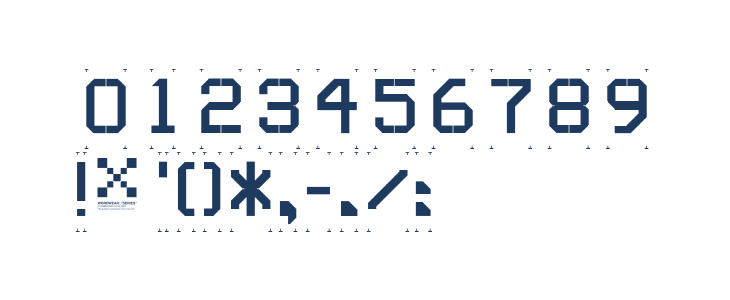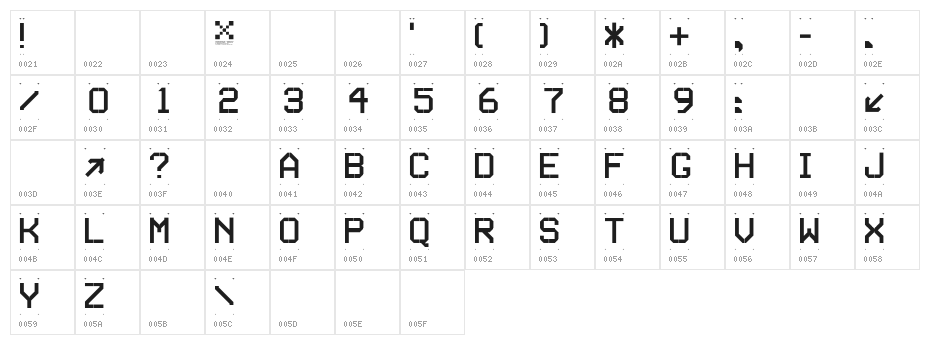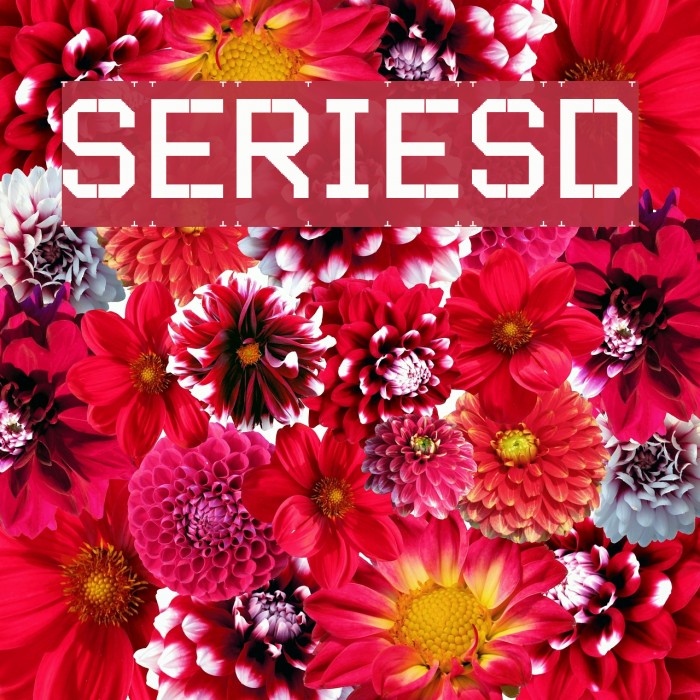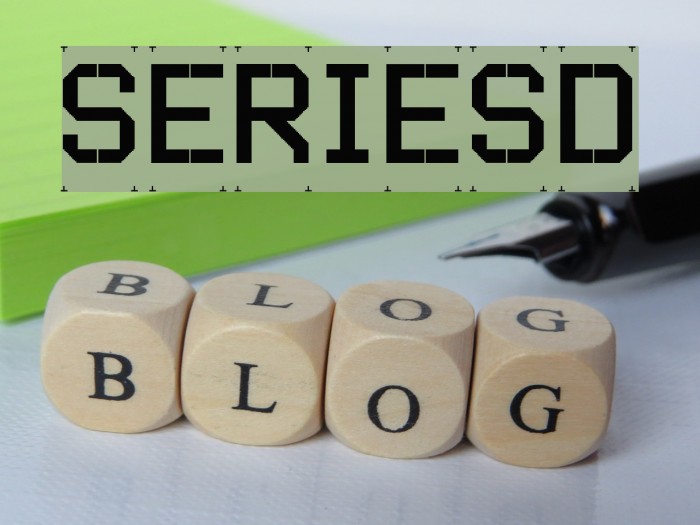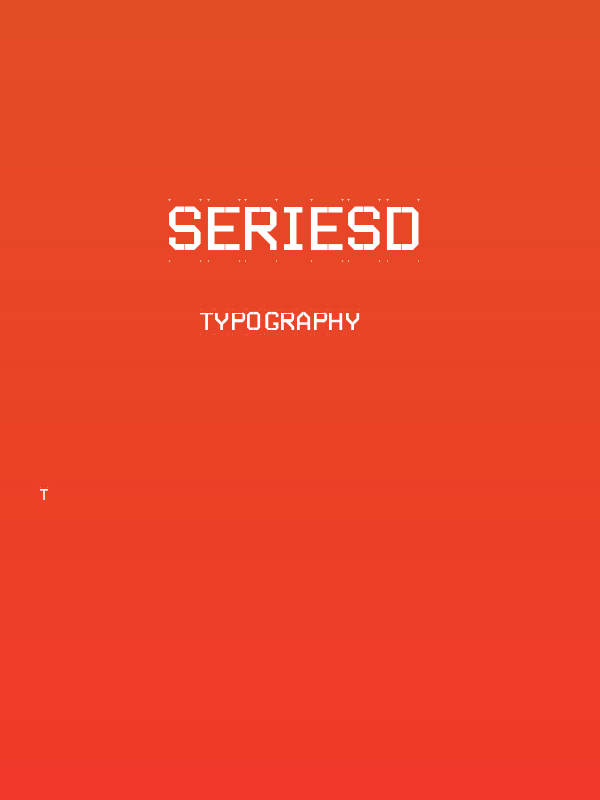
SERIESD Font
SERIESD Description
This font features a bold, geometric design with a distinctly digital aesthetic. The characters are constructed with sharp angles and straight lines, giving it a modern and technical feel. The uppercase letters are uniform in height, while the numerals and special characters maintain a consistent style, enhancing readability. The font's blocky appearance is reminiscent of early digital displays, making it suitable for projects that require a retro or tech-inspired look. Its clean and structured form ensures clarity, even at smaller sizes.
| Use Case | Headlines, Logos, Digital displays |
| Proposed Projects | Ideal for tech-themed designs, digital interfaces, retro gaming graphics, and futuristic branding. |